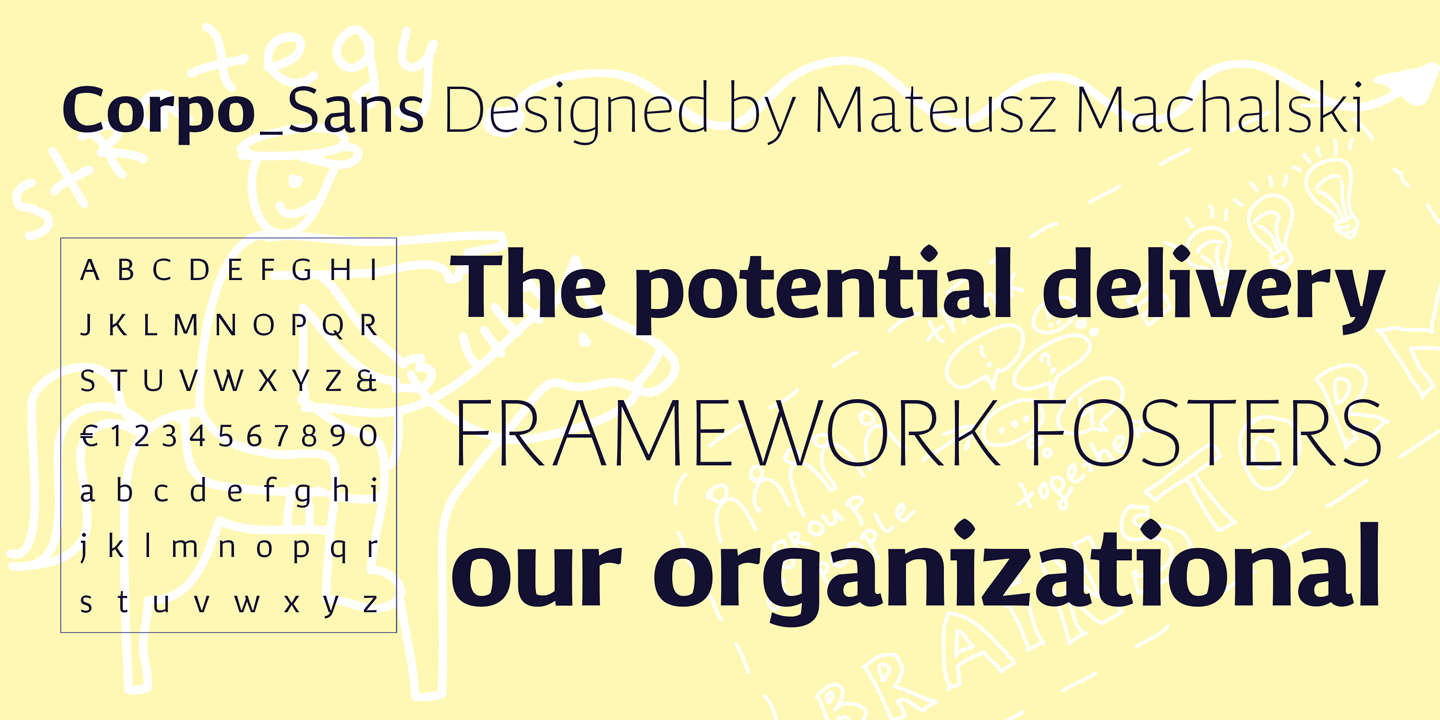
Corpo Sans Font is perfect for corporate identity systems, business communication materials, professional presentation designs, modern office environments, executive documentation, institutional branding, financial service graphics, consulting firm materials, enterprise software interfaces, and contemporary workplace signage.
Corpo Sans Font is exciting because it embodies the essence of modern corporate professionalism through its clean, authoritative letterforms that communicate competence and reliability while delivering messages with executive presence and institutional credibility that inspires confidence.
Corpo Sans Font family includes Regular, Bold, Light, Medium, Italic, Condensed, Extended, and Executive variations, providing designers with a complete corporate toolkit to create professional visual communications that establish authority and trust across all business applications.
Corpo Sans Font represents the pinnacle of corporate design sophistication and professional communication standards, making it an essential choice for organizations that operate in competitive business environments where credibility and competence are paramount. This authoritative typeface brings executive presence to any design project, whether you're developing Fortune 500 identities, creating investor relations materials, or designing enterprise-level software interfaces. The precisely engineered character geometry of Corpo Sans Font Free Download ensures maximum clarity while maintaining the professional aesthetic that appeals to business leaders, corporate executives, and institutional decision-makers who demand excellence in their professional communications.
Business industry professionals consistently select Corpo Sans Font for multinational corporations, financial institutions, and consulting firms because of its ability to communicate expertise, stability, and institutional strength. The font's authoritative appearance makes it particularly effective for targeting C-suite executives and creating brand experiences that emphasize corporate excellence and professional competence.
Corpo Sans Font dominates enterprise environments where efficiency and professional credibility are non-negotiable. Software companies, business service providers, and corporate training organizations rely on this font to create materials that reflect their commitment to professional standards and operational excellence.
The finance and consulting sectors have embraced Corpo Sans Font for investment banks, management consultancies, and professional service firms. Its corporate visual character helps organizations create communications that inspire client confidence and demonstrate the sophisticated expertise that justifies premium professional fees, appealing to business clients seeking proven competence and institutional reliability.